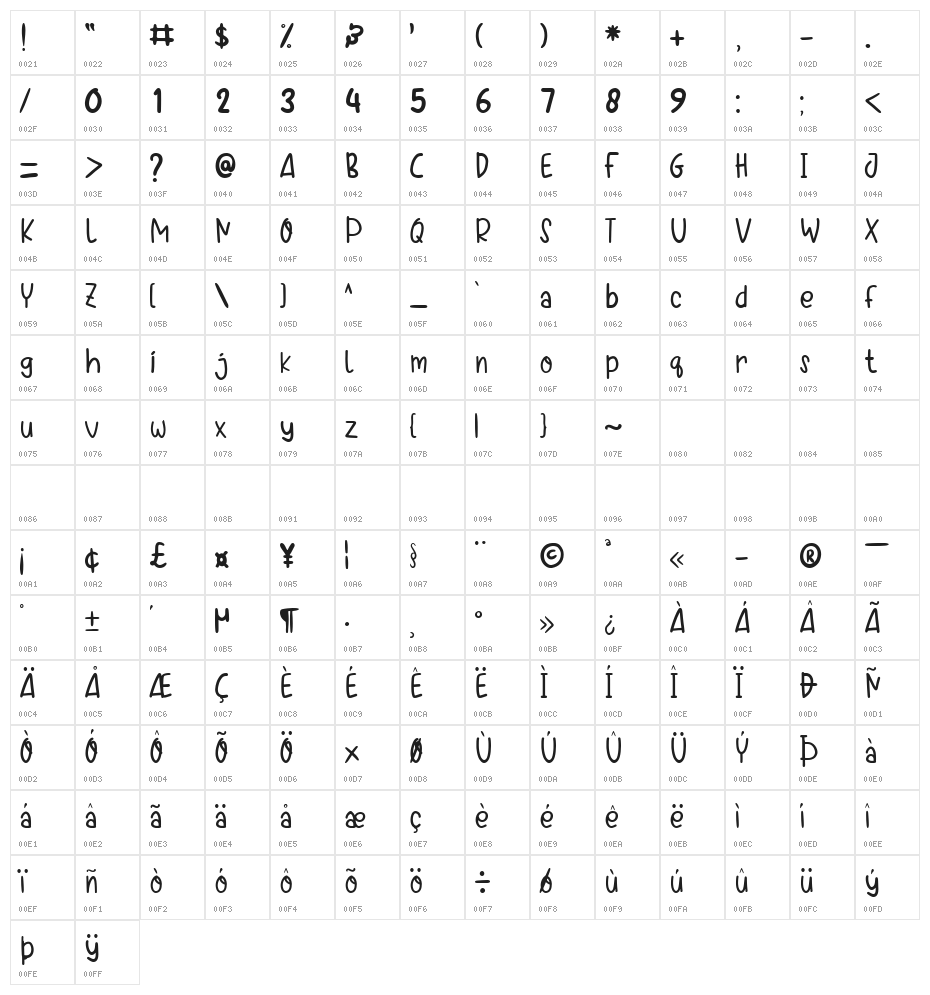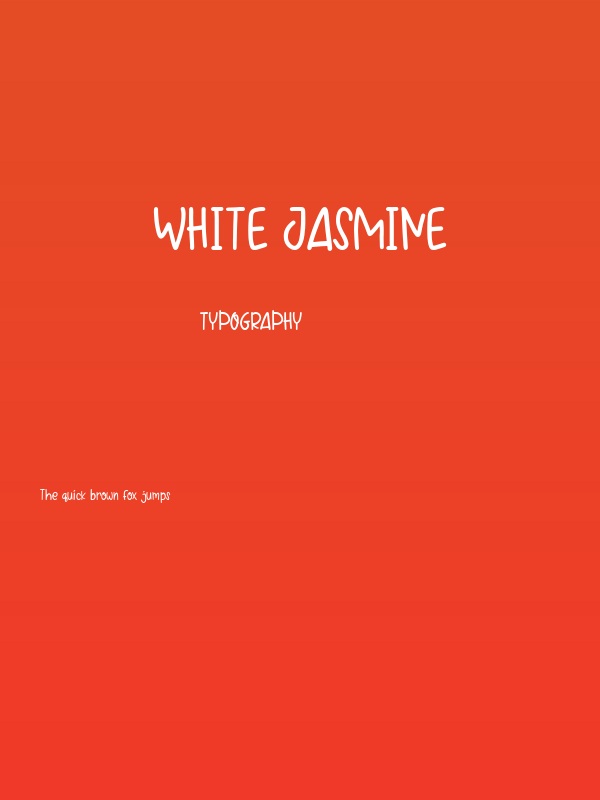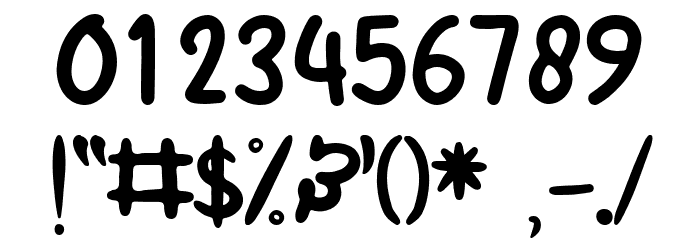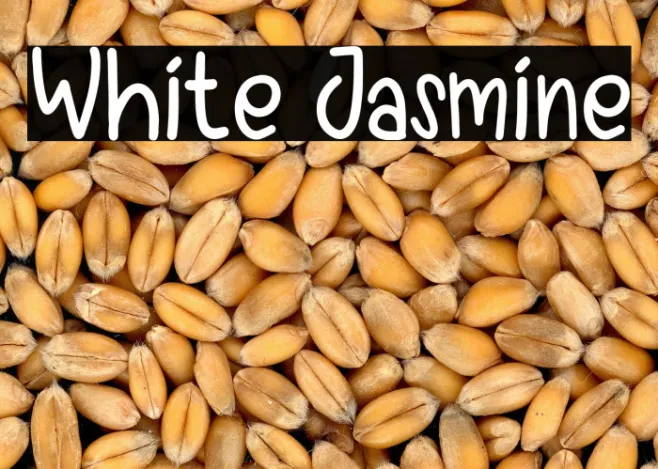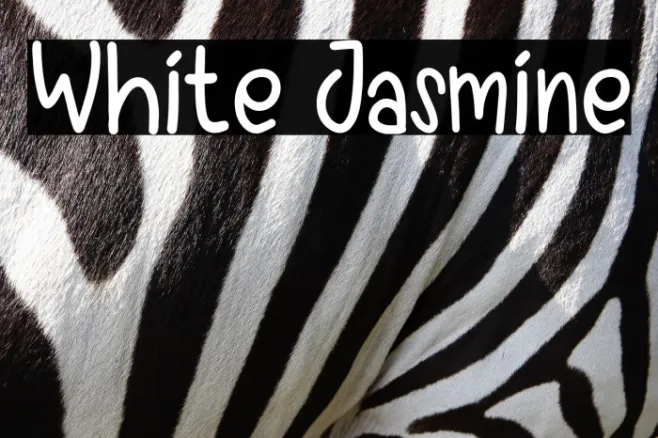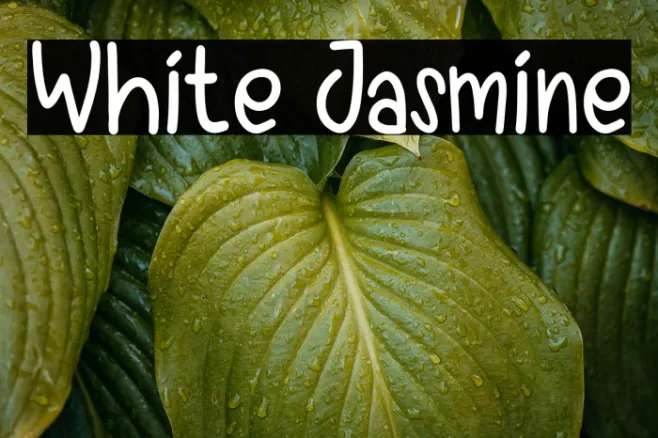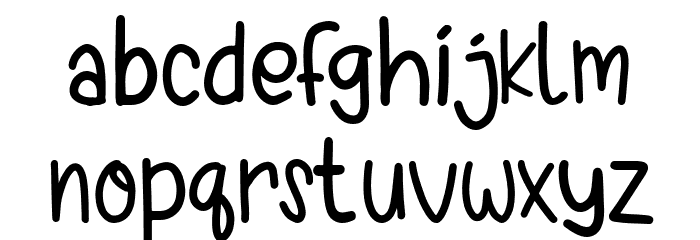
White Jasmine Font
White Jasmine Description
This playful and whimsical font features a hand-drawn aesthetic with rounded edges and a casual style. The characters are slightly irregular, adding to its charm and informal appeal. The uppercase letters are bold and prominent, while the lowercase letters maintain a consistent flow with a slightly narrower form. The numerals are well-balanced and match the overall playful theme. Special characters are creatively designed, maintaining the font's unique personality. This font exudes a friendly and approachable vibe, making it suitable for a variety of creative projects.
| Use Case | Logos, Headlines, Informal Text |
| Proposed Projects | Ideal for children's books, greeting cards, playful branding, and casual invitations. |